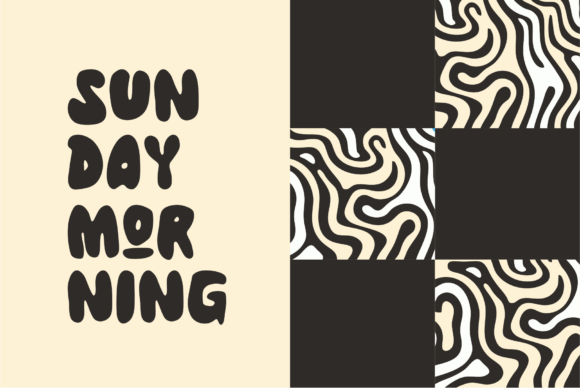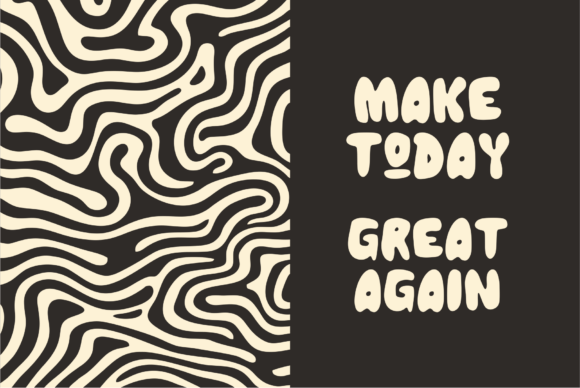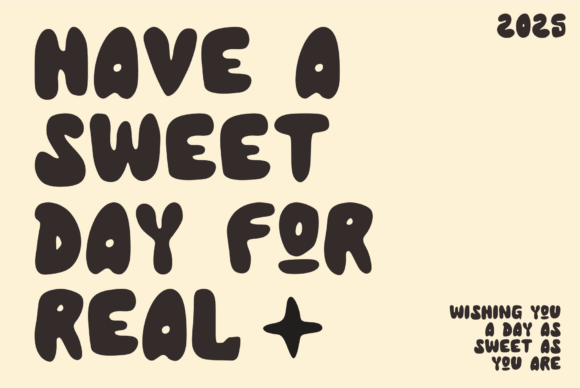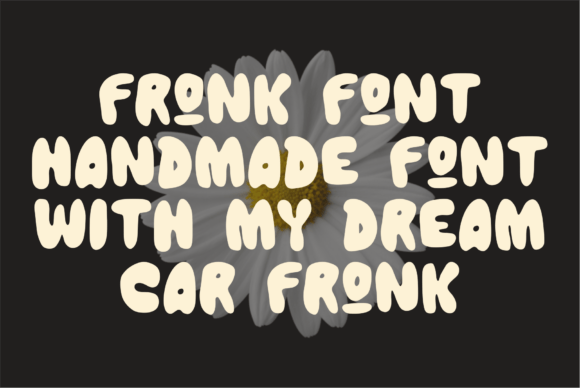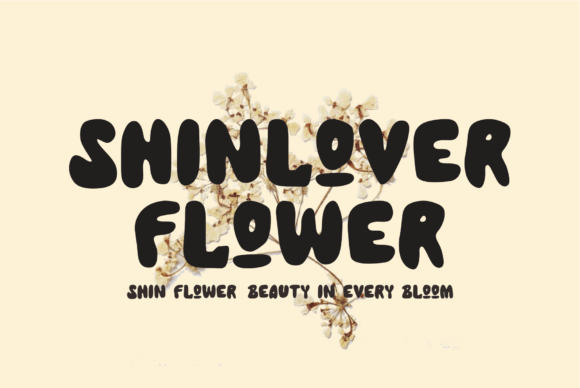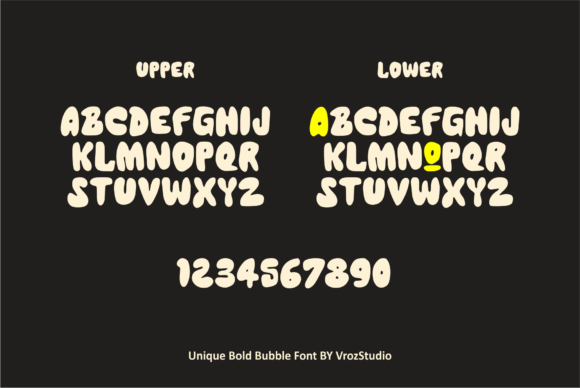
Introduction to Fronk Font
Fronk is a fun, bubble letter font designed to bring playful energy to your projects.
Hand-drawn with love, itโs perfect for anyone who wants to add a cheerful and youthful vibe to their work Great for headers, posters, album covers, social media, logos, book titles, games, and more.
Key Features of Fronk Font